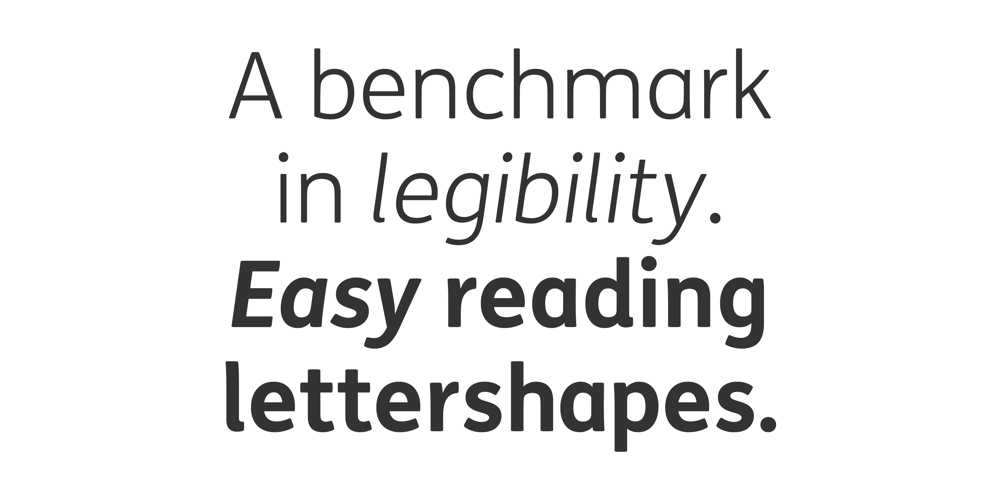
FS Me Font Family was designed by Mitja Miklavcic, Jason Smith, Phil Garnham and published by Fontsmith. FS Me contains 16 styles and family package options. MencapWhen most of us go about everyday tasks, we take for granted the reading that’s involved, on instructions, labels and so on. For people with learning disabilities, reading is made much harder by certain fonts. FS Me is designed specifically to improve legibility for people with learning disabilities.The font was researched and developed with – and endorsed by – Mencap, the UK’s leading charity and voice for those with learning disabilities. Mencap receive a donation for each font license purchased.Every letter of FS Me was tested for its appeal and readability with a range of learning disability groups across the UK.InclusiveFontsmith were determined to design a font that was accessible to those with learning disabilities without standing out as such – one that was inclusive of all readers. It should comply with accessibility guidelines and work best at 12pt, but still have a character of its own that was warm and approachable.“So much accessible design is done separately to the main body of brand work,” says Jason Smith. “We wanted to make a typeface that covered both brand tone and neutrality, and that could be used legitimately as a brand font as well as in accessible design.” Me, you, everyoneFS Me is about design that doesn’t patronise. People with learning disabilities are often treated as inferior by childlike design. FS Me is designed for adults, not children – a beautifully-designed font for everyone.Its features include very subtle distinguishing elements of each letter to aid the reading and comprehension of texts, and tails, ascenders and descenders that have been extended for extra clarity.What the people said…Here is a sample of comments from the extensive research groups that helped to shape the letterforms of FS Me:“I want something round, clear and friendly.”“We like movement in the letters but don’t want anything childish.”“The ‘b’ and ‘d’ need to be different as they can be confused.”“I prefer the handwriting-style ‘a’.”“It’s important to have an accessible ‘a’ and ‘g’. Teachers sometimes complain that learners cannot read or understand the inaccessible ‘a’ and ‘g’.”